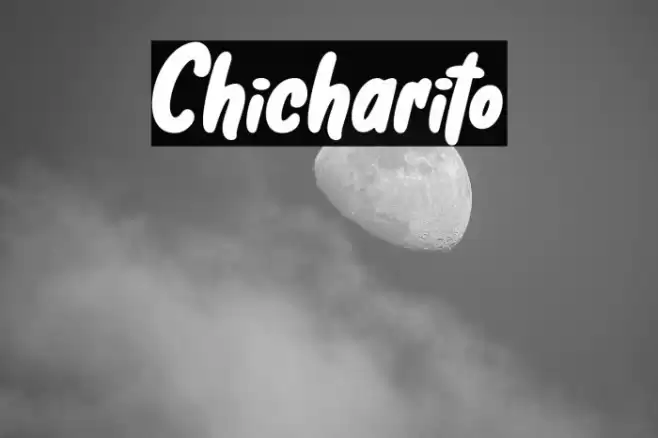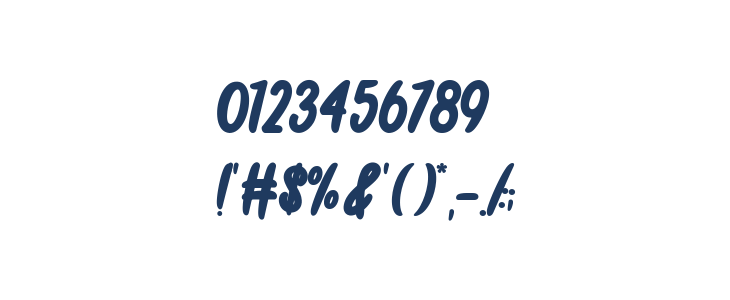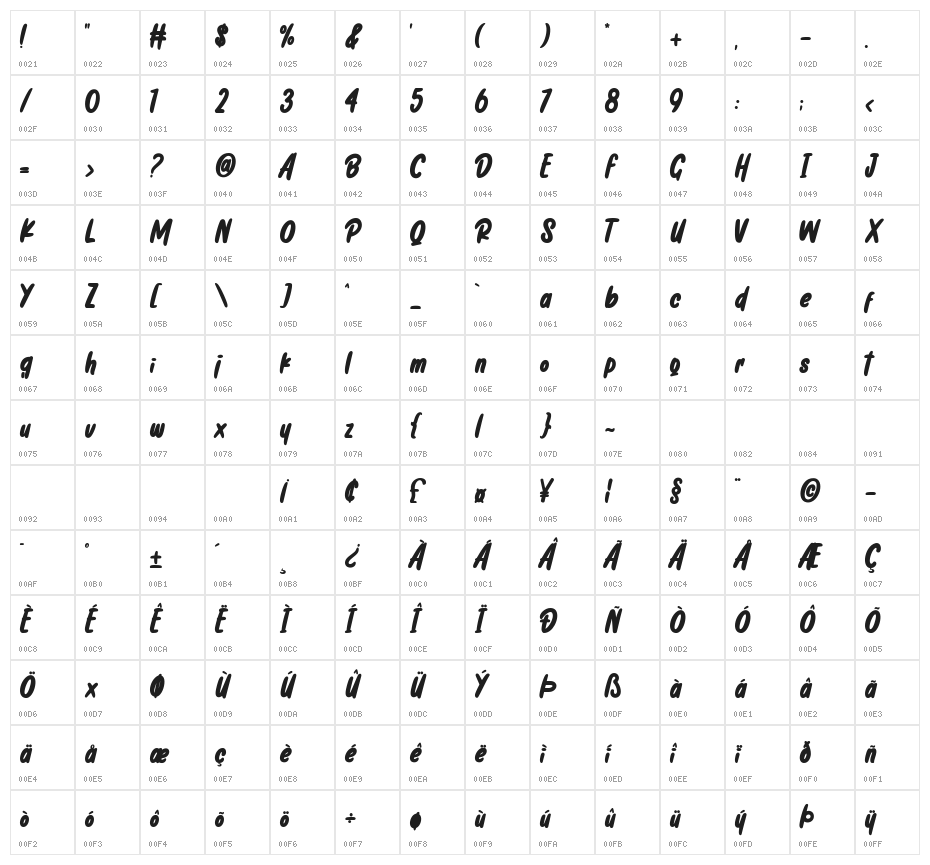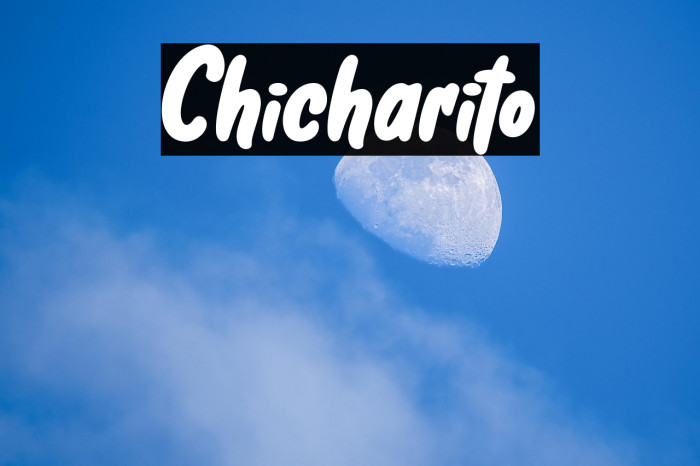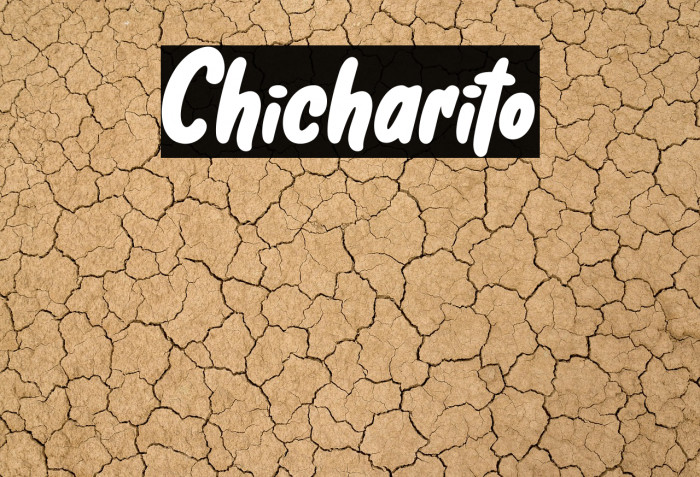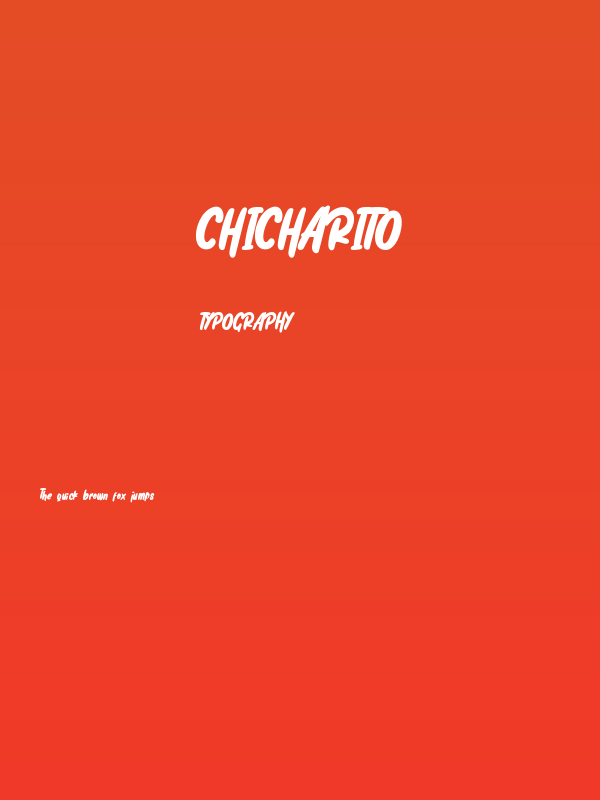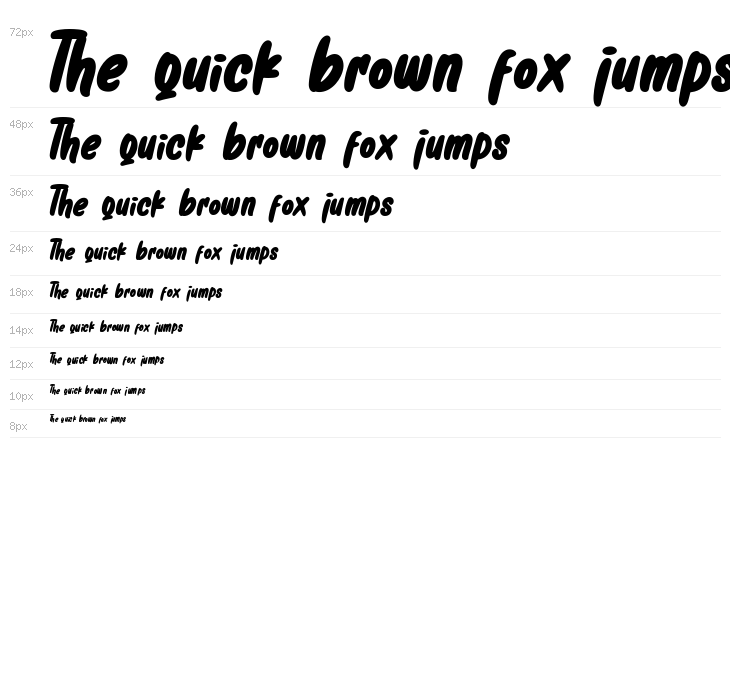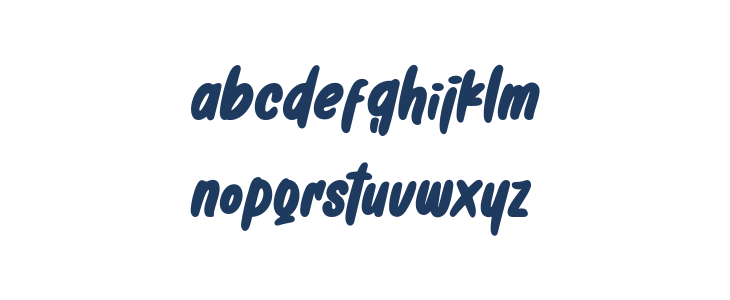
Chicharito Font
Chicharito Description
This font features a bold and playful script style with a handwritten feel. The letters are rounded and connected, giving it a casual and friendly appearance. The strokes are thick and consistent, providing a strong visual impact. The uppercase and lowercase letters maintain a cohesive style, with slight variations in curvature and angle that add to its dynamic look. Numbers and special characters are designed to match the overall aesthetic, ensuring uniformity across all glyphs. This font is ideal for projects that require a personal touch or a sense of informality.
A bold, playful script font with a handwritten feel from Regular fonts.